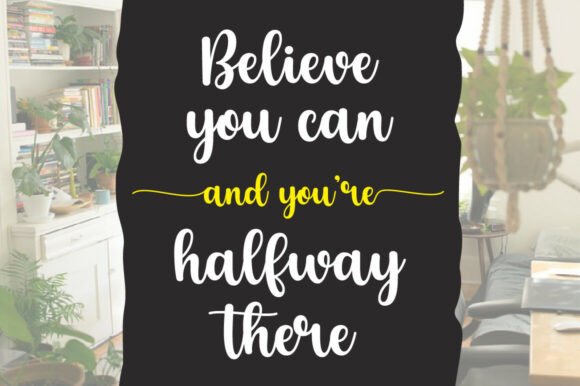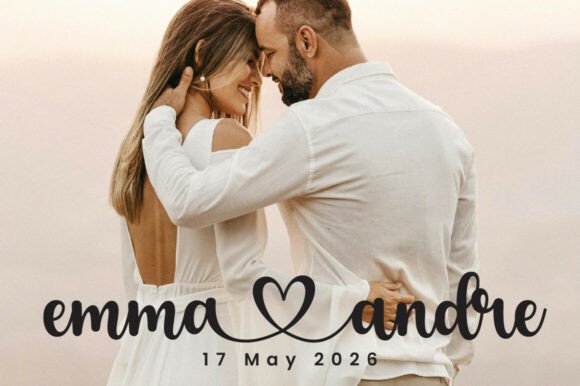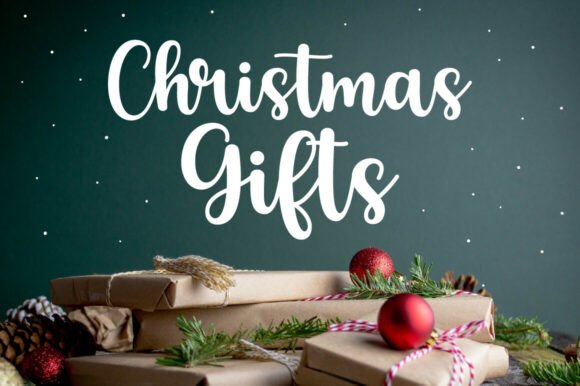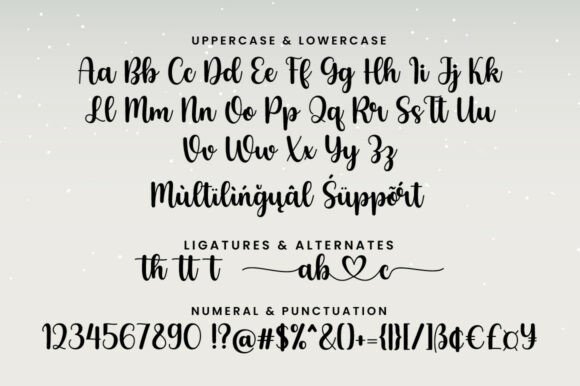
Introduction to Mary Jane Font
Mary Jane is a modern romantic calligraphy font with smooth handwritten flows.
Mary Jane font is perfect for logos, wedding stationery, cards, gift designs, photography, watermark, product packaging, and handwritten quotes .
Key Features of Mary Jane Font